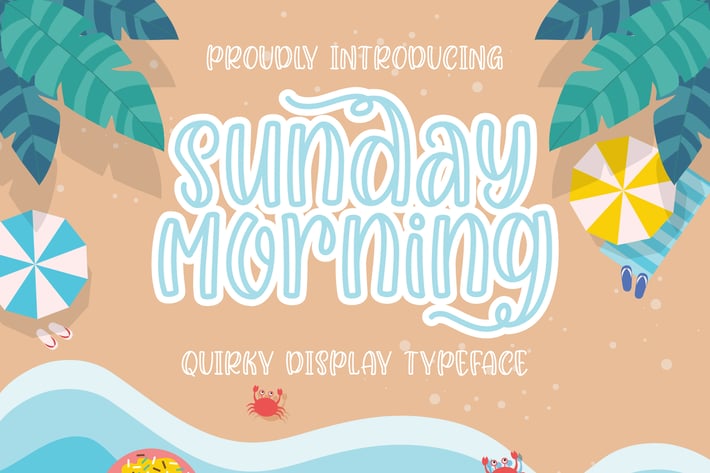
Sunday Morning Quirky Business Font
Sunday Morning is a a quirky display typeface made with love, resulting in a font that looks so cute, fresh and adorable. This font is suitable for all your products that need a cheerful, fresh and adorable feeling.
Sunday Morning is perfect for branding projects, logo, wedding designs, social media posts, advertisements, product packaging, product designs, label, photography, watermark, invitation, stationery and any projects that need handwriting taste.
Ton of glyphs
Ligature & Alternate